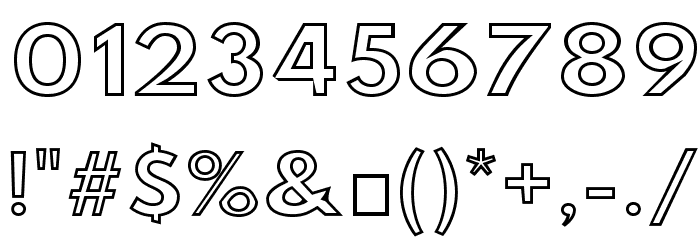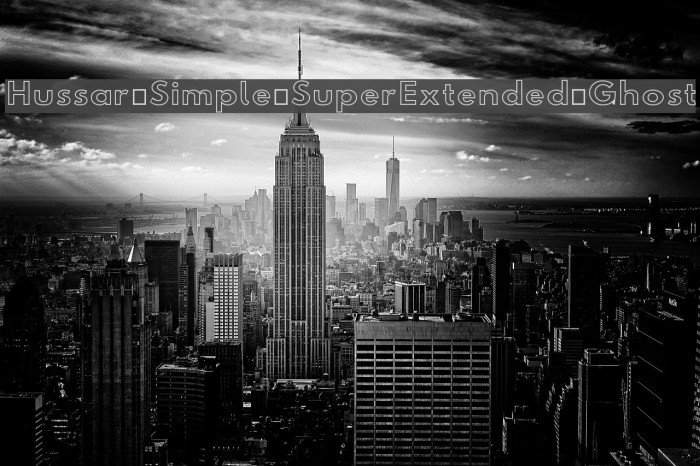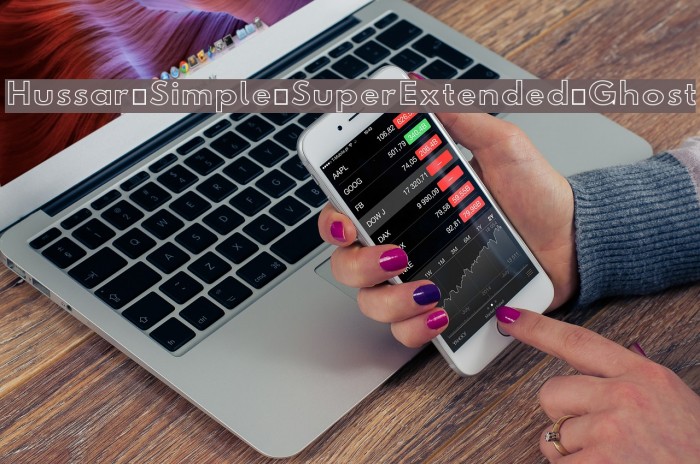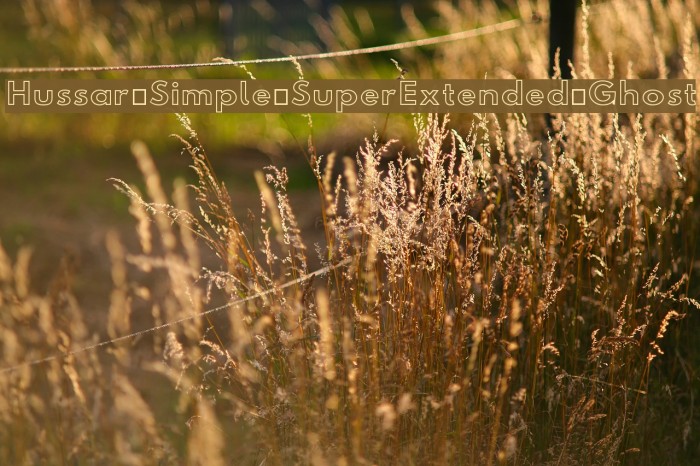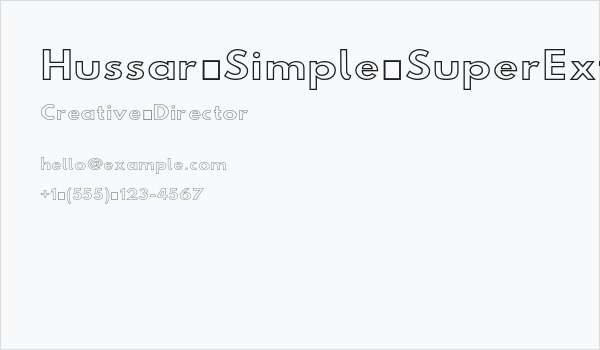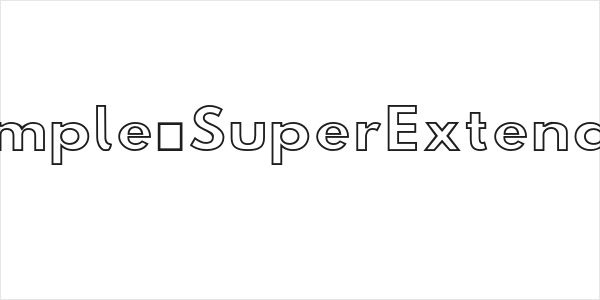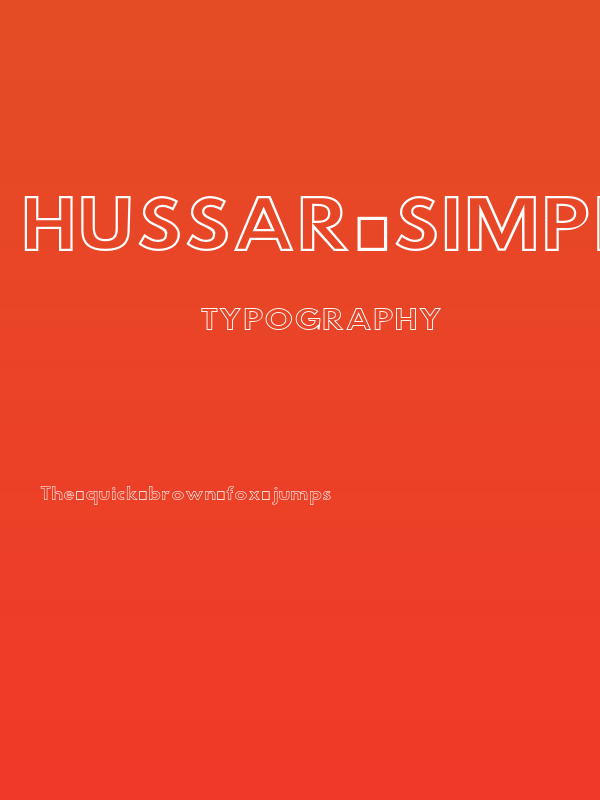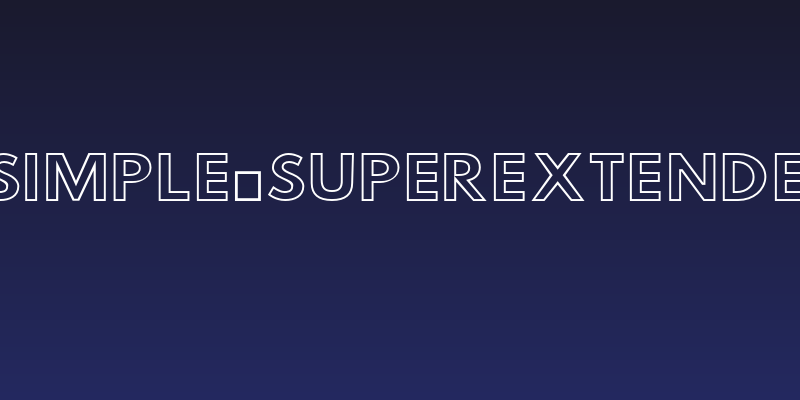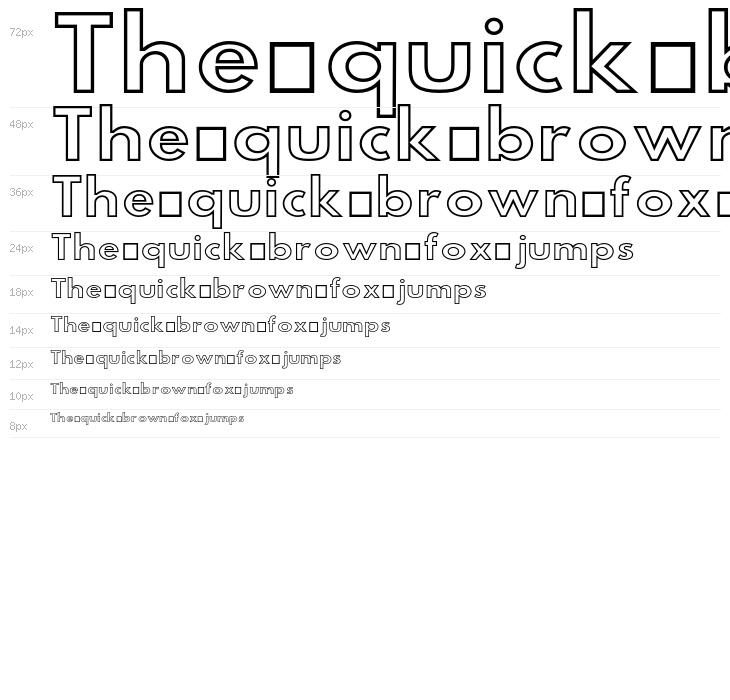
Hussar Simple SuperExtended Ghost Font
Hussar Simple SuperExtended Ghost Description
This font features a clean, geometric design with a modern aesthetic. The characters are outlined, giving them a hollow appearance that adds a unique visual interest. The uppercase and lowercase letters maintain a consistent style, with smooth curves and sharp angles that create a balanced look. The numerals are equally well-designed, offering clarity and uniformity. Special characters are included, matching the overall style and ensuring versatility. This font's extended width provides a spacious feel, making it suitable for various design applications.
| Proposed Projects | Ideal for branding, posters, headlines, and any project requiring a modern, eye-catching typeface. |